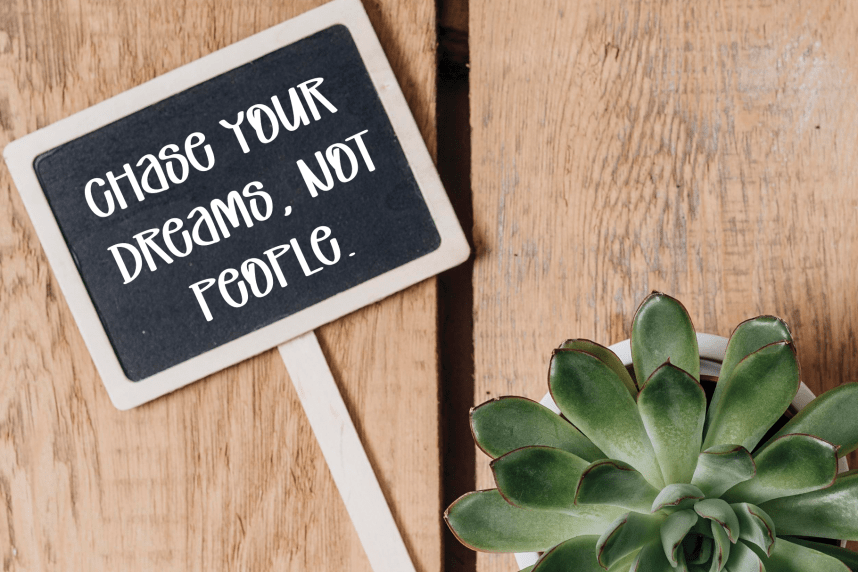
Mother Grandma – Moder Style Font
Mother Grandma – Moder Style Font is a sweet and friendly handwritten display font. Cute and fun, this font is ideal for writing wedding invitations, cards, or any other design that might need a playful touch!